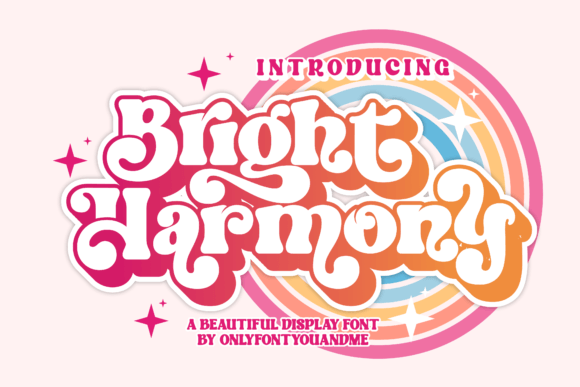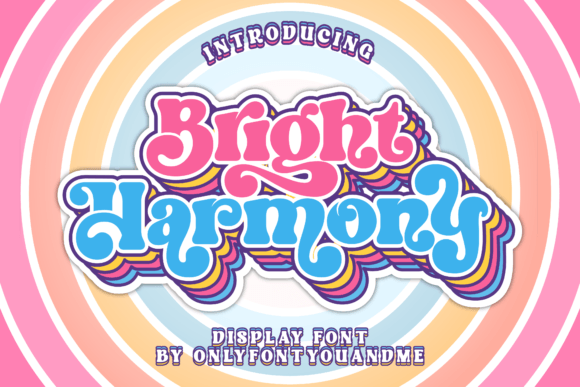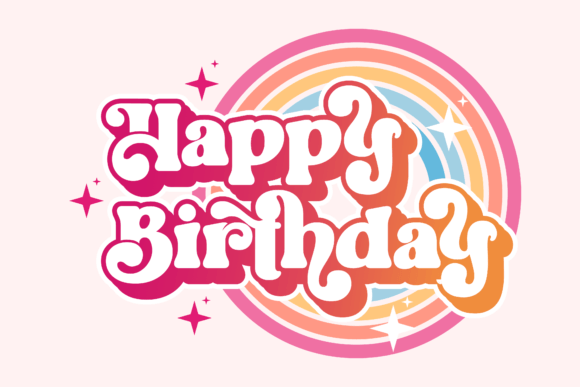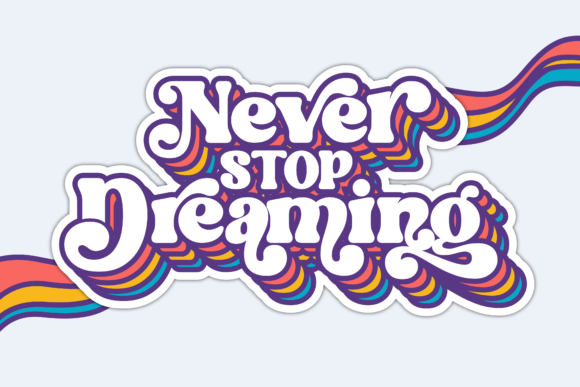
Bright Harmony Font: A Groovy Retro Display Font for Cricut & Crafts!
About the Bright Harmony Font
Crafted with precision, the Bright Harmony Font is ready to bring your ideas to life. Bright Harmony is cute and fun display font. This font is PUA encoded which means you can access all of the glyphs and alternates with ease! It will look great on Sticker, T Shirt, Mug and so much more!
Bright Harmony’s playful energy makes it ideal for headlines, short text on packaging, and branding elements where a touch of fun is desired. It’s excellent for projects targeting a youthful or whimsical audience, such as children’s products, social media graphics, and event invitations. However, its decorative nature makes it unsuitable for body text or UI elements requiring high readability.
Pairing Bright Harmony with a clean sans-serif like Open Sans for body copy creates a balanced contrast; the playful display font is complemented by the neutrality of the supporting font. For a more sophisticated feel, consider pairing it with a classic serif like Garamond, softening its youthful exuberance.
The font’s overall personality is undeniably cheerful and friendly, making it a strong choice for brands that wish to project approachability and lightheartedness. Avoid using it in contexts requiring seriousness or formality.